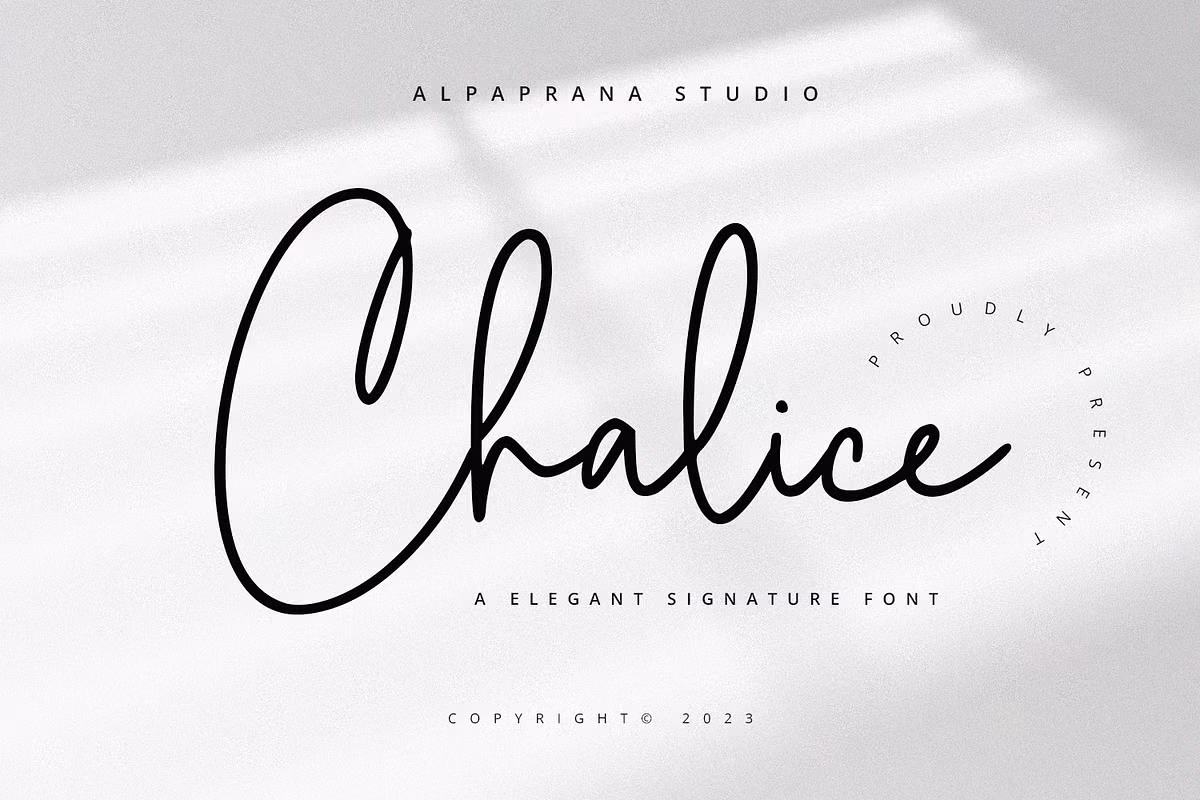
The Chalice - Signature Font Free Download is a stylish and sophisticated script font that adds a personal, handwritten touch to your designs. With its elegant strokes and fluid, cursive style, this font is perfect for creating logos, branding materials, invitations, and more. Its unique, signature-like appearance brings a sense of authenticity and refinement, making it ideal for projects that need a high-end, professional touch. Please note, for commercial use, a license purchase is required. However, you can easily download the Chalice - Signature Font Free Download for free for personal use and explore its beauty in your projects. Whether you're working on wedding invitations, luxury branding, or personal creative work, this font will add a sophisticated and chic look to your typography. Download the Chalice - Signature Font Free Download today and give your designs an elegant, handwritten flair.